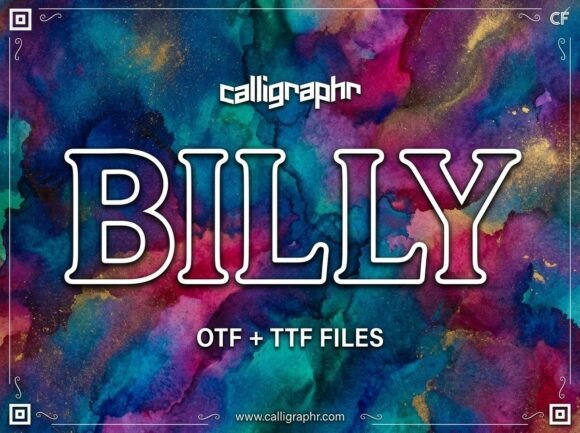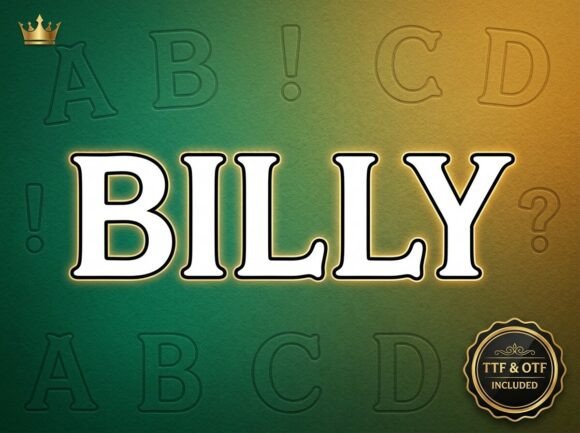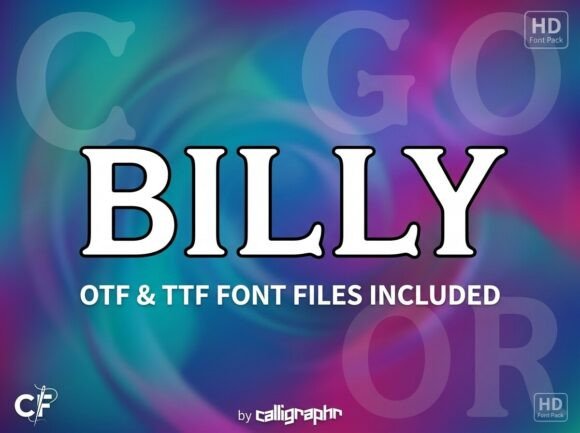
Introducing Billy Font: The Charming Display Serif for Creative Projects
Are you looking for a typeface that can add a touch of warmth and personality to your creative projects? Look no further than Billy Font, a premium display serif that blends traditional structure with a handcrafted touch. This beautiful font is perfect for designers and crafters who want to infuse their work with a charming and approachable soul.
The Characteristics of Billy Font
Billy Font features classic serif letterforms characterized by slightly softened edges and a gentle, hand-inked aesthetic. The crisp black outlines and clean white fill give the font a modern and rustic feel that’s perfect for a wide range of creative projects. The softened edges add a touch of warmth and humanity to the font, making it perfect for projects that require a personal and approachable feel.
Perfect for Artisanal Branding and More
Billy Font is the premier choice for independent artisanal bakery branding, cozy café menus, children’s storybook titles, and high-impact “modern-rustic” social media headers. The font’s charming and approachable feel makes it perfect for businesses and projects that want to convey a sense of warmth and personality. Whether you’re designing a logo for a small business or creating a title for a children’s book, Billy Font is the perfect choice.
Why Choose Billy Font?
So why choose Billy Font for your creative projects? Here are just a few reasons:
- Unique and eye-catching: Billy Font’s classic serif letterforms and softened edges make it a unique and eye-catching addition to any creative project.
- Versatile: The font is perfect for a wide range of creative projects, from artisanal branding to children’s storybook titles.
- Easy to read: The crisp black outlines and clean white fill make Billy Font easy to read, even at small sizes.
- Handcrafted feel: The font’s hand-inked aesthetic gives it a handcrafted feel that’s perfect for projects that require a personal touch.
How to Use Billy Font in Your Creative Projects
Billy Font is easy to use in a wide range of creative projects. Here are a few ideas to get you started:
- Logos and branding: Use Billy Font to create a unique and eye-catching logo for your business or project.
- Signage and menus: The font is perfect for creating eye-catching signage and menus for restaurants, cafes, and other businesses.
- Children’s book titles: Billy Font is a great choice for children’s book titles, adding a touch of whimsy and personality to your project.
- Social media headers: Use the font to create high-impact social media headers that showcase your brand’s personality.
Tips for Getting the Most Out of Billy Font
Here are a few tips for getting the most out of Billy Font:
- Experiment with different sizes: Billy Font looks great at a wide range of sizes, from small headings to large display text.
- Pair with other fonts: The font pairs well with a wide range of other fonts, including sans-serif and script fonts.
- Use in combination with images: Billy Font looks great in combination with images, especially those with a rustic or vintage feel.
Billy Font is a premium display serif that’s perfect for designers and crafters who want to add a touch of warmth and personality to their creative projects. With its classic serif letterforms, softened edges, and hand-inked aesthetic, this font is sure to make your projects stand out. Whether you’re designing a logo, creating a title for a children’s book, or crafting a social media header, Billy Font is the perfect choice.